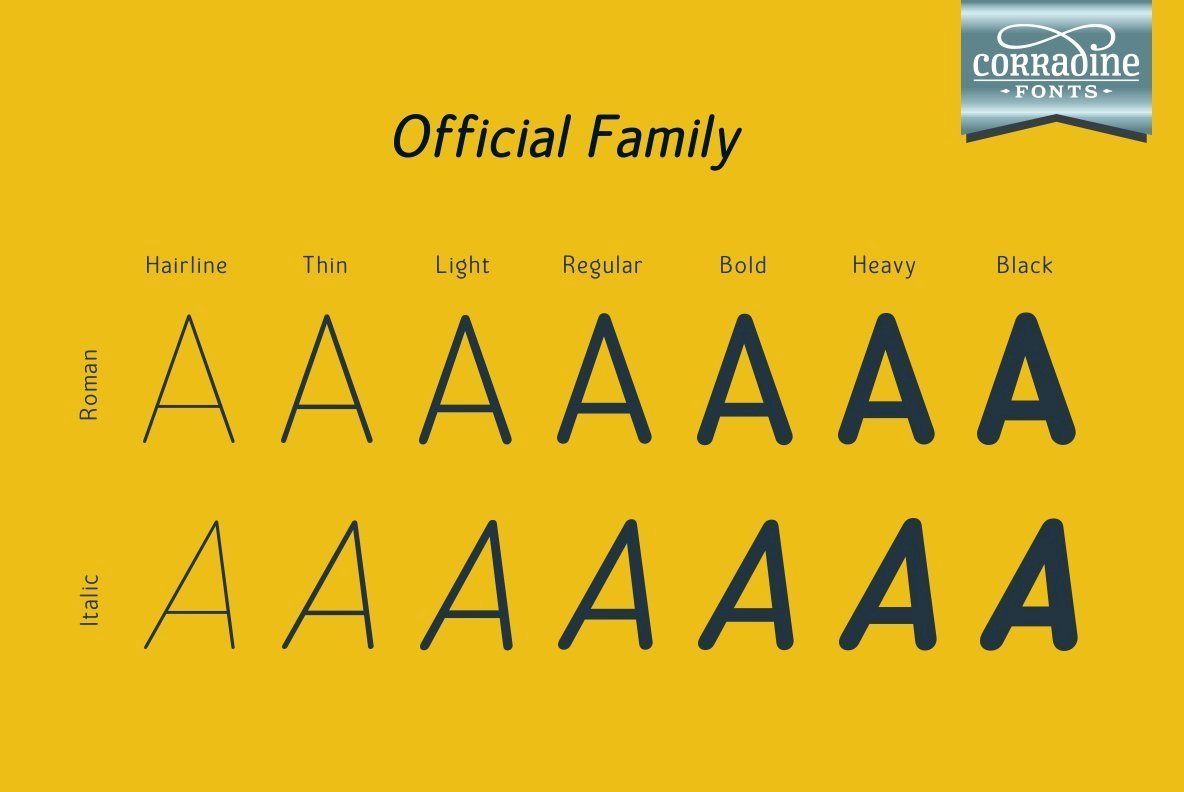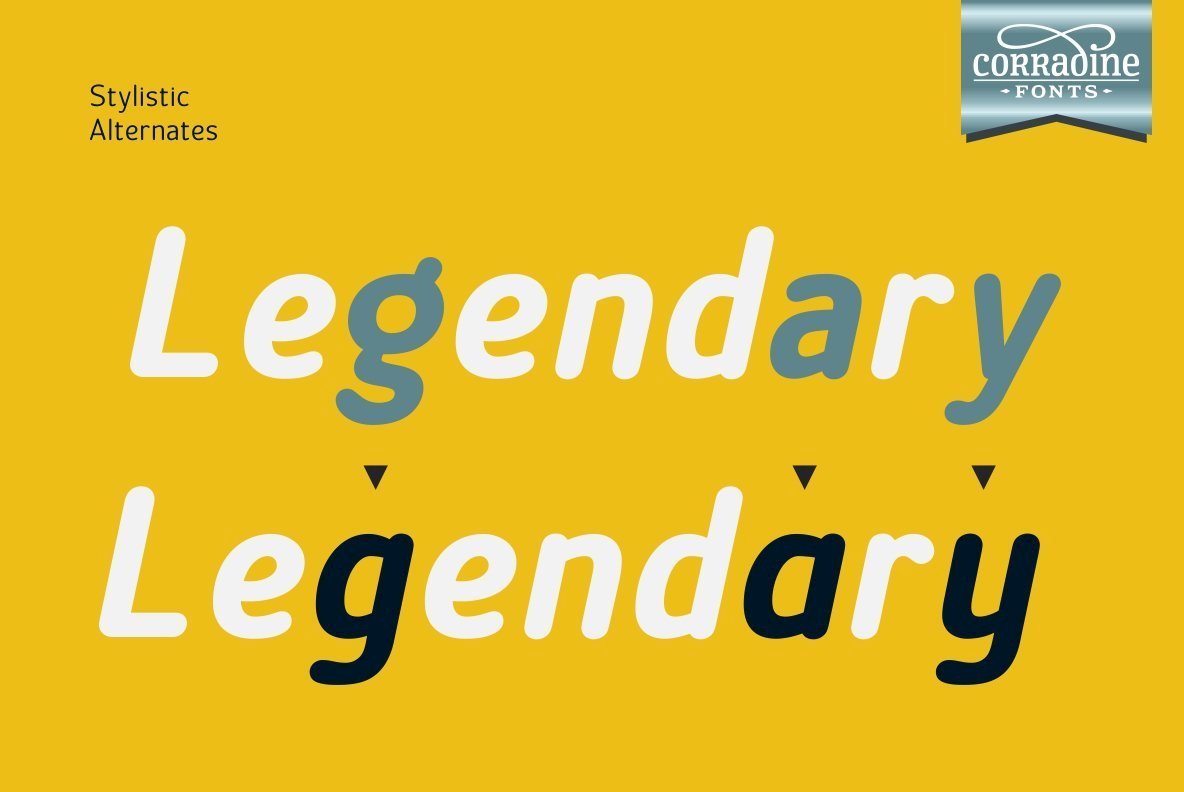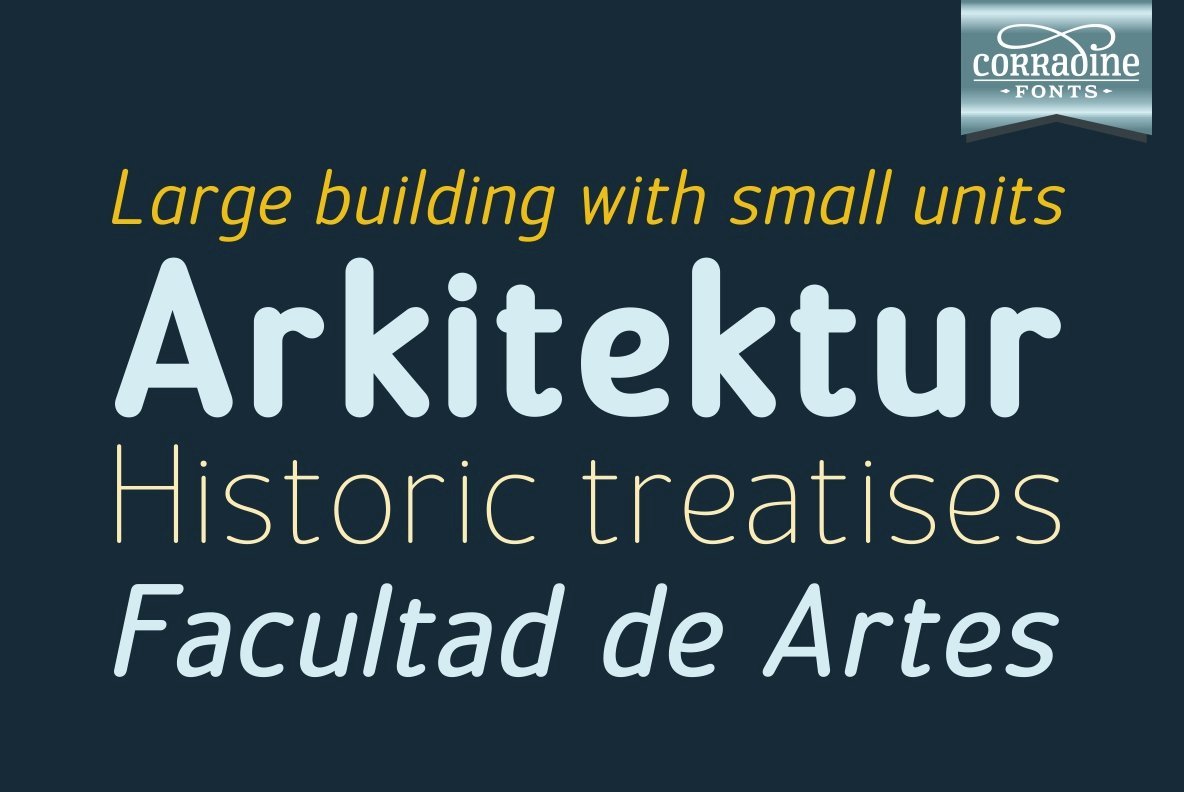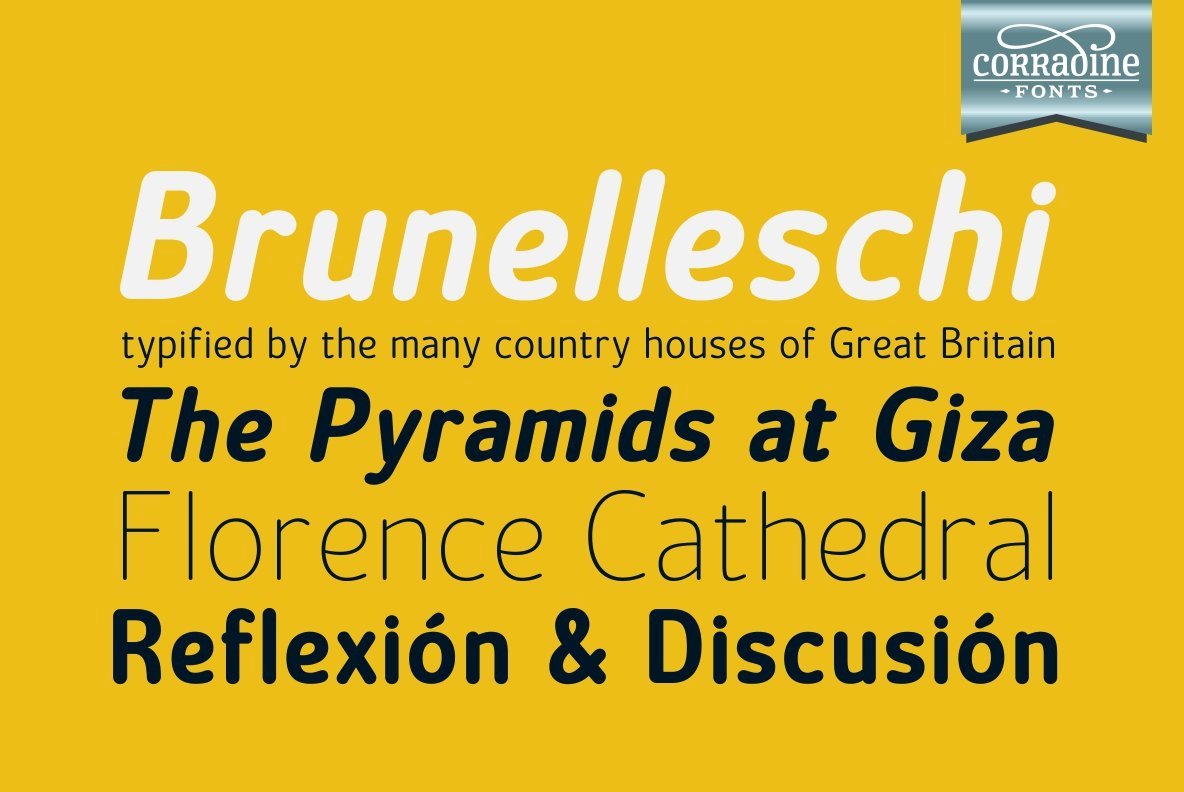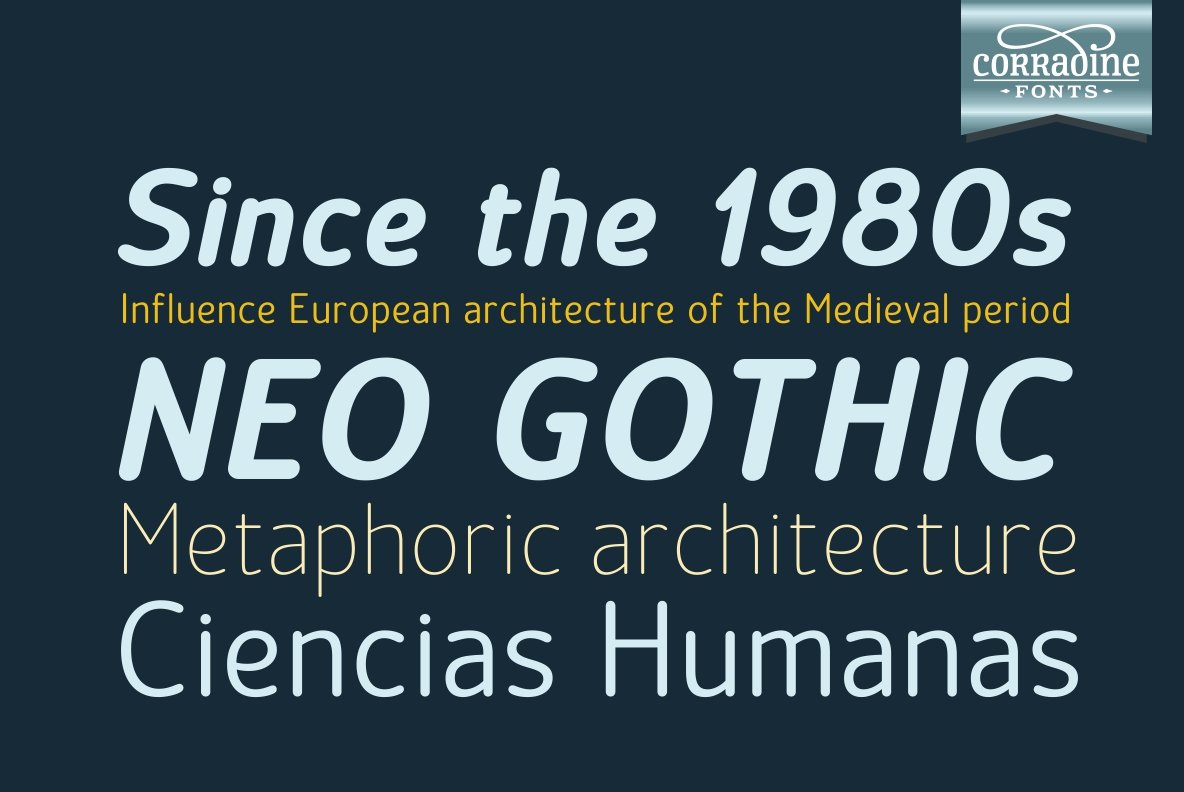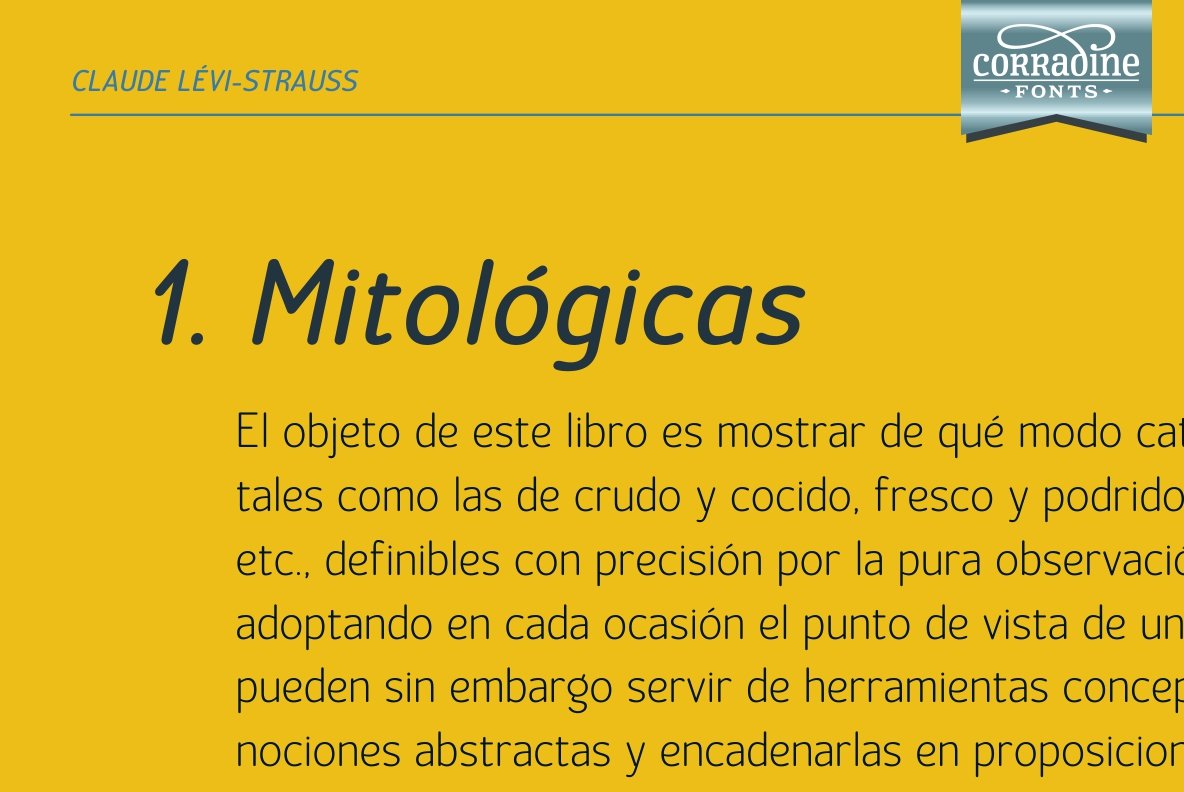
Official Font
Official is a very clear and legible font family of 14 fonts. Its simplicity makes Official an ideal style to use in any project you could imagine.